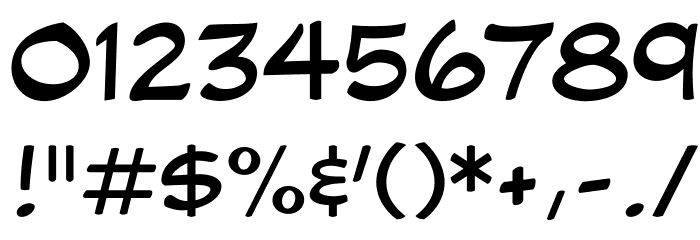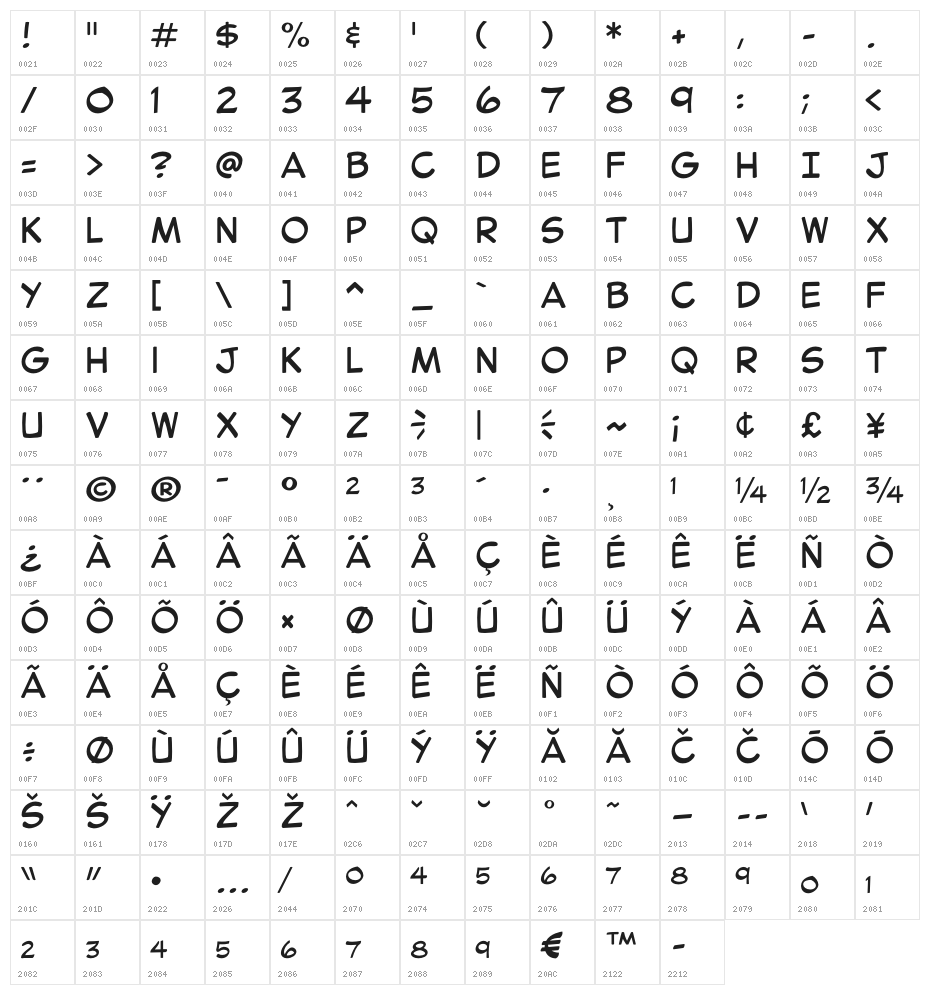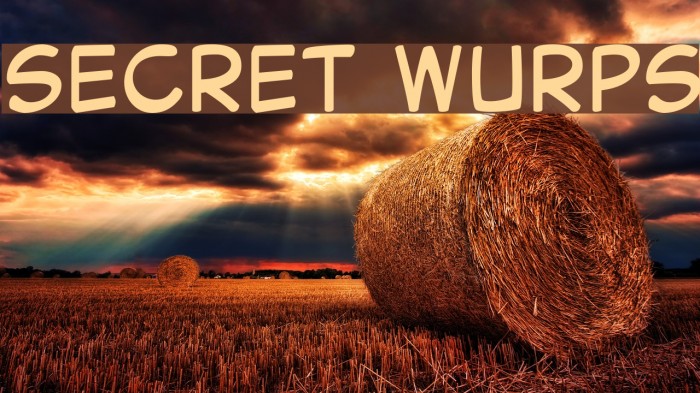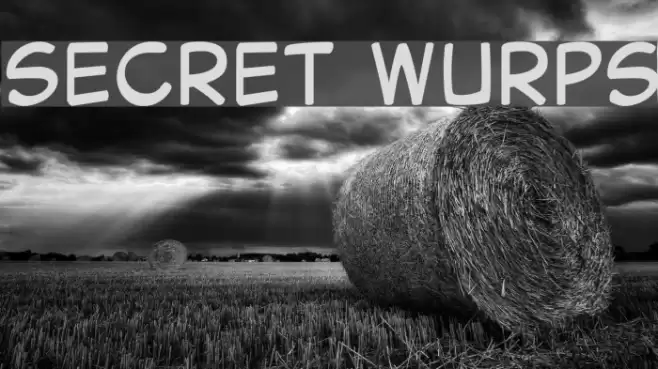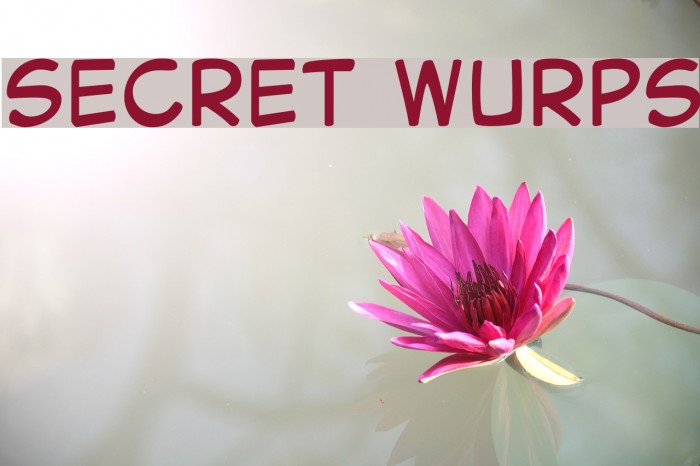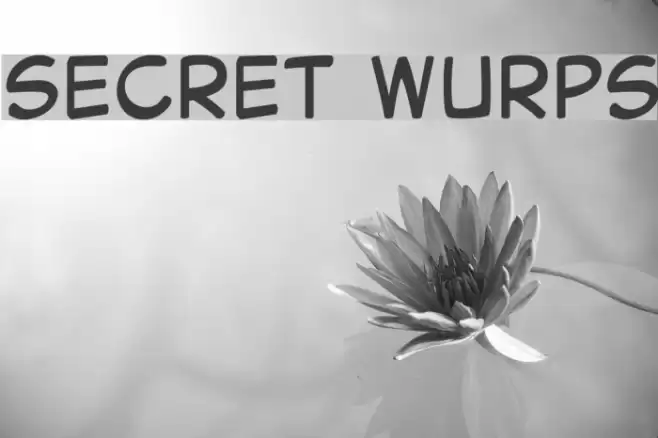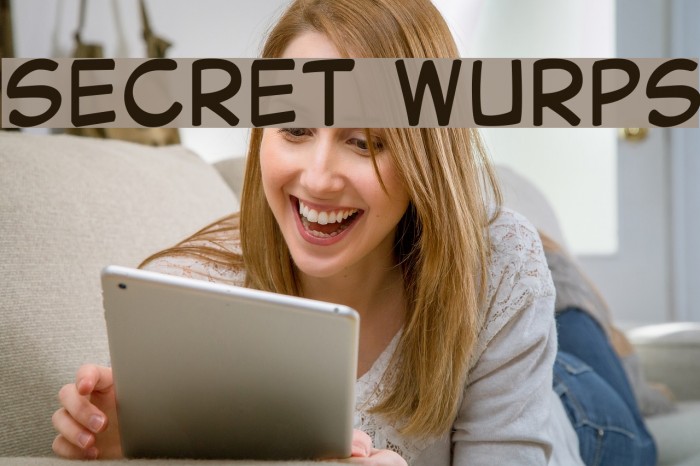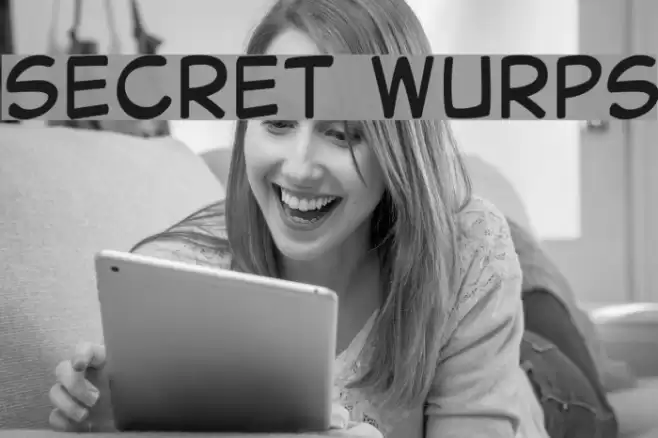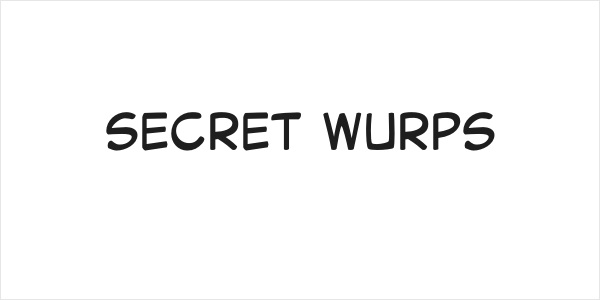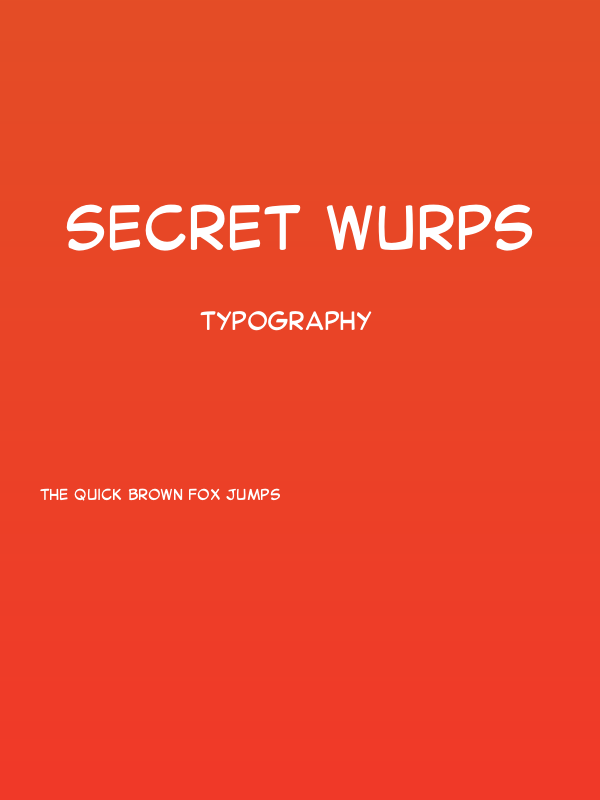
Secret Wurps Font
Secret Wurps Description
This playful and rounded font features a casual and friendly appearance, characterized by its smooth curves and slightly irregular shapes. The letters are bold and have a hand-drawn quality, giving them a whimsical and approachable feel. The uppercase and lowercase letters maintain a consistent style, with the numbers and special characters following suit. The font's informal style makes it suitable for projects that aim to convey a sense of fun and creativity. Its legibility is enhanced by the clear distinction between each character, making it versatile for various design applications.